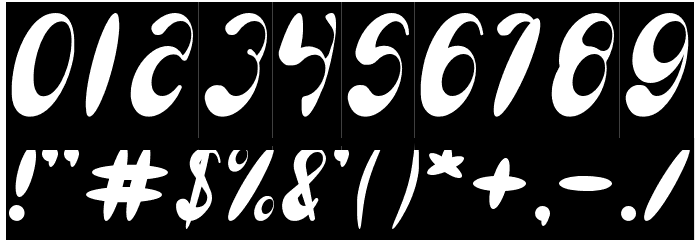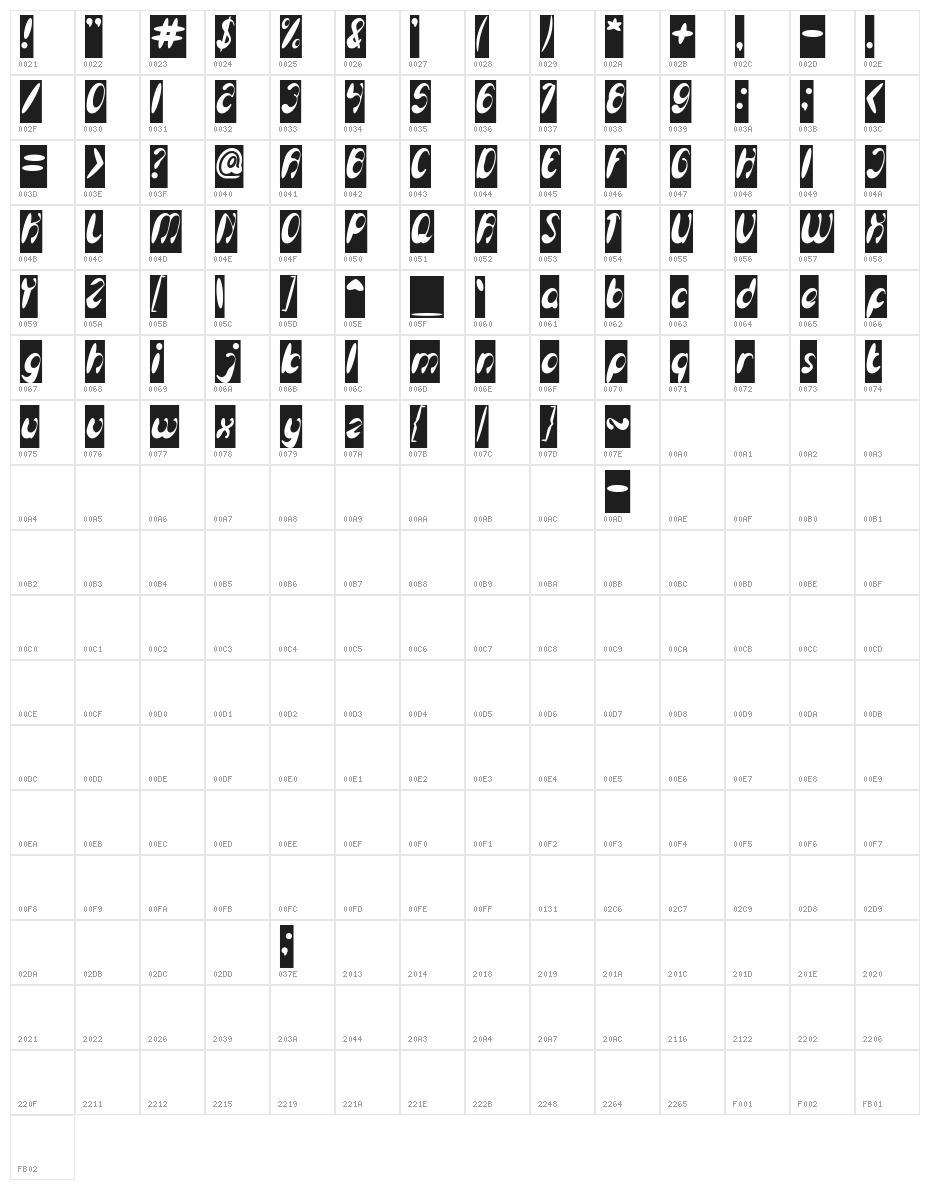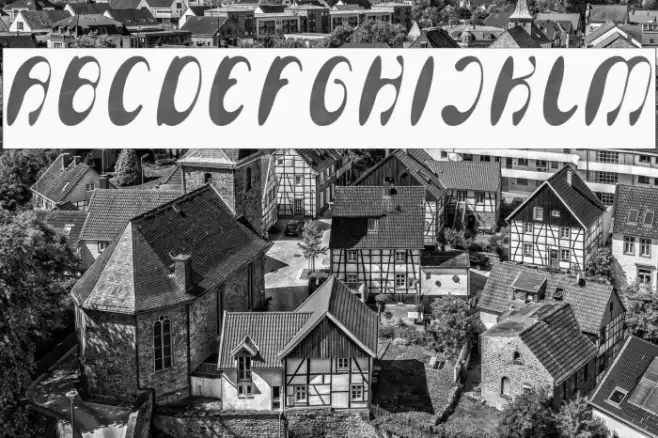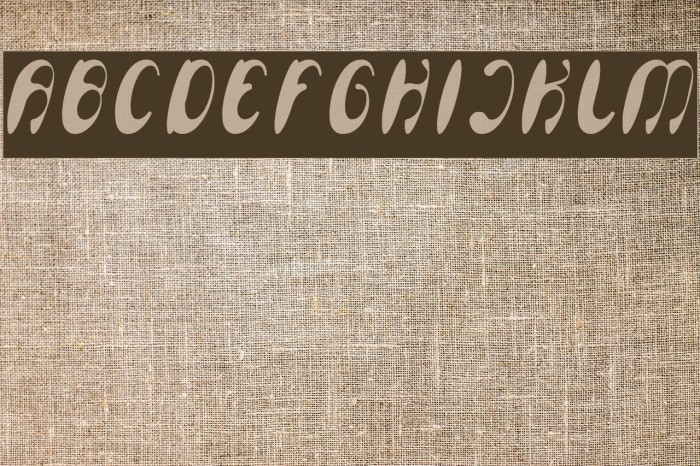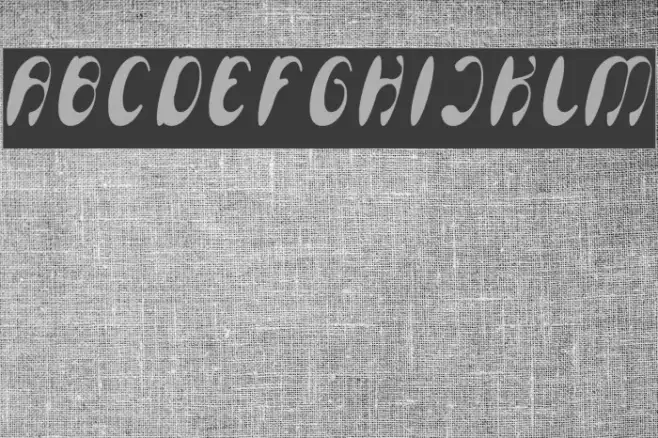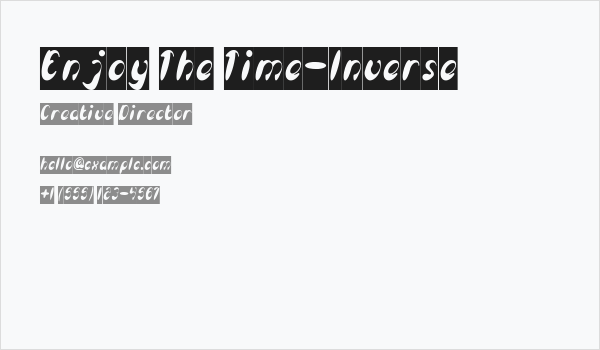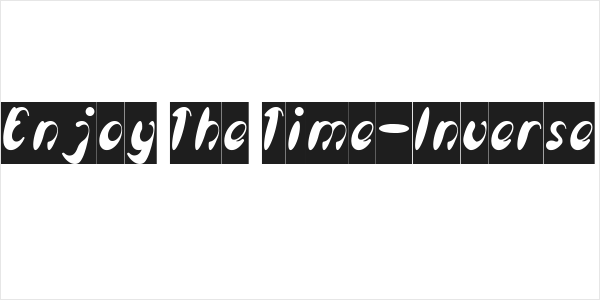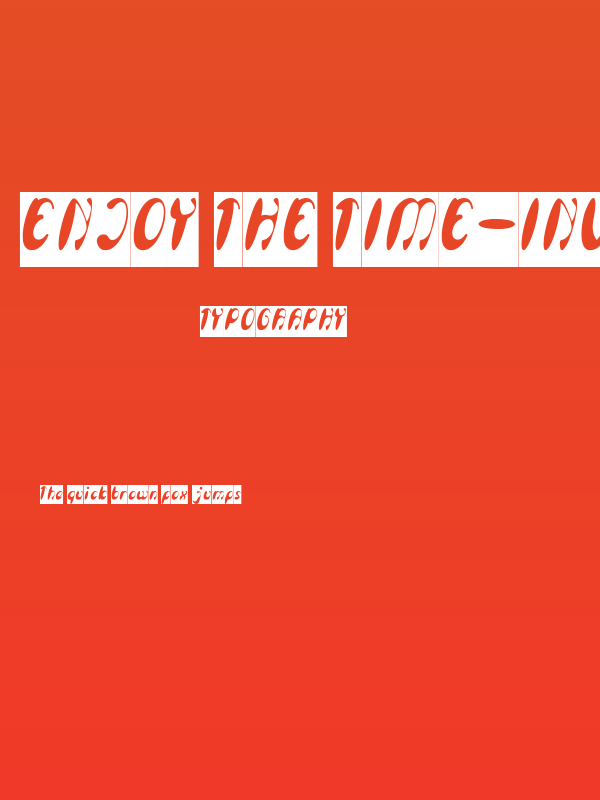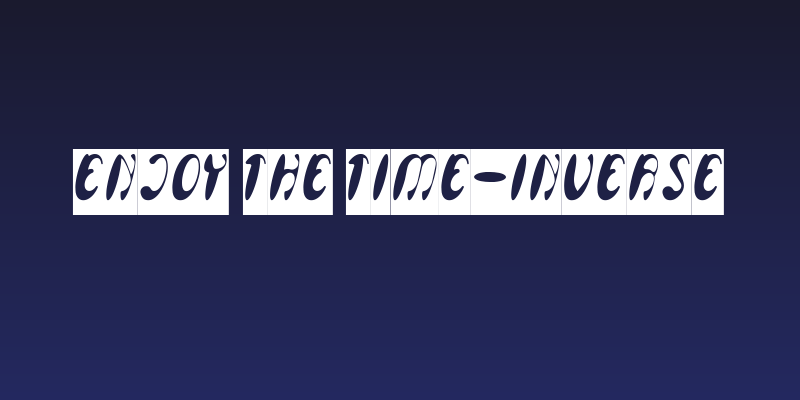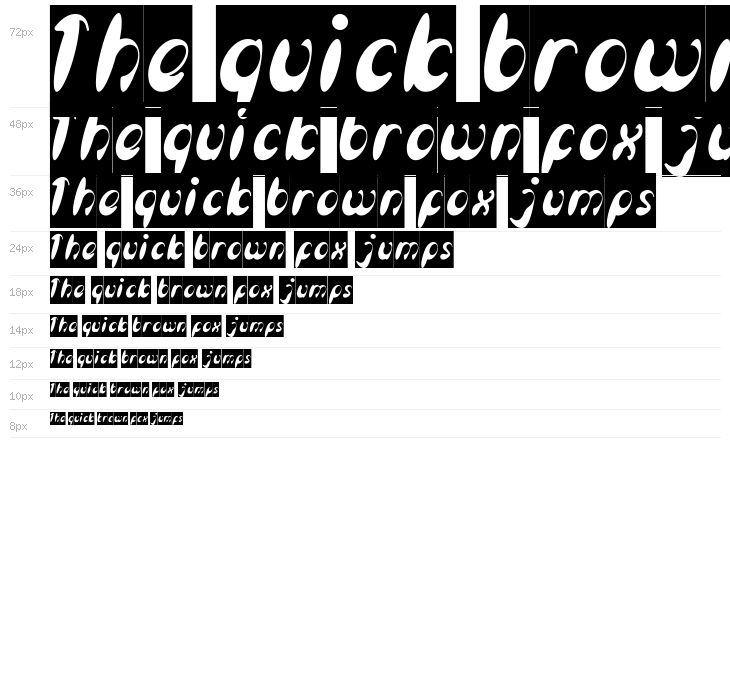
Enjoy The Time-Inverse Font
Enjoy The Time-Inverse Description
This font features a unique and playful design with a strong emphasis on rounded, flowing shapes. The characters are bold and have a whimsical, almost cartoon-like appearance, making them stand out with their distinctive style. The letters are slightly slanted, adding a dynamic and energetic feel. The strokes are thick and consistent, providing a sense of uniformity across the alphabet. The font includes both uppercase and lowercase letters, numerals, and a variety of special characters, all maintaining the same playful aesthetic. The overall look is modern and artistic, suitable for creative projects that require a touch of fun and originality.
| Proposed Projects | Ideal for children's books, playful branding, creative posters, and artistic invitations. |